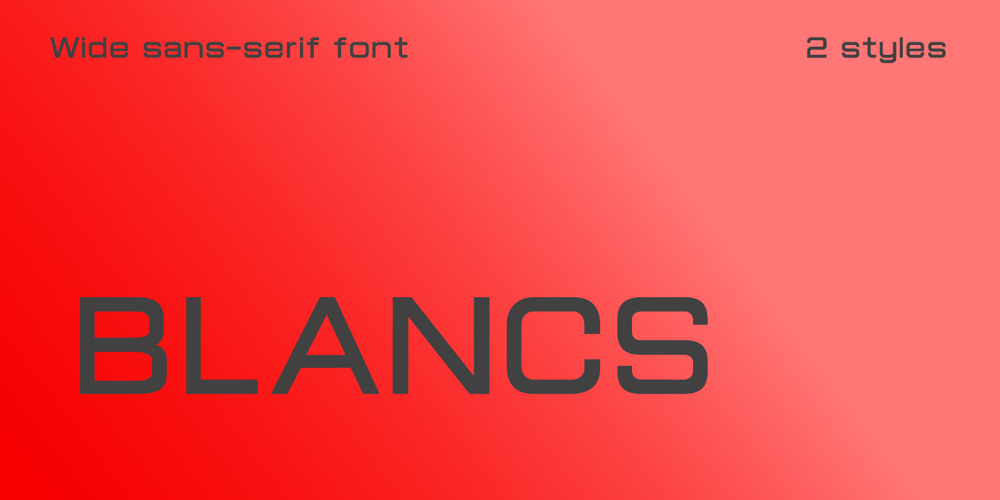
Blancs Font Family was designed by Arief Rochman and published by 4RM Font. Blancs contains 2 styles and family package options. Blancs font is created with the utmost value of aesthetics and classy aura, with an anatomical feature that is geometrical, with an extended style. This font is suitable for use in graphic design, especially those with futuristic themes